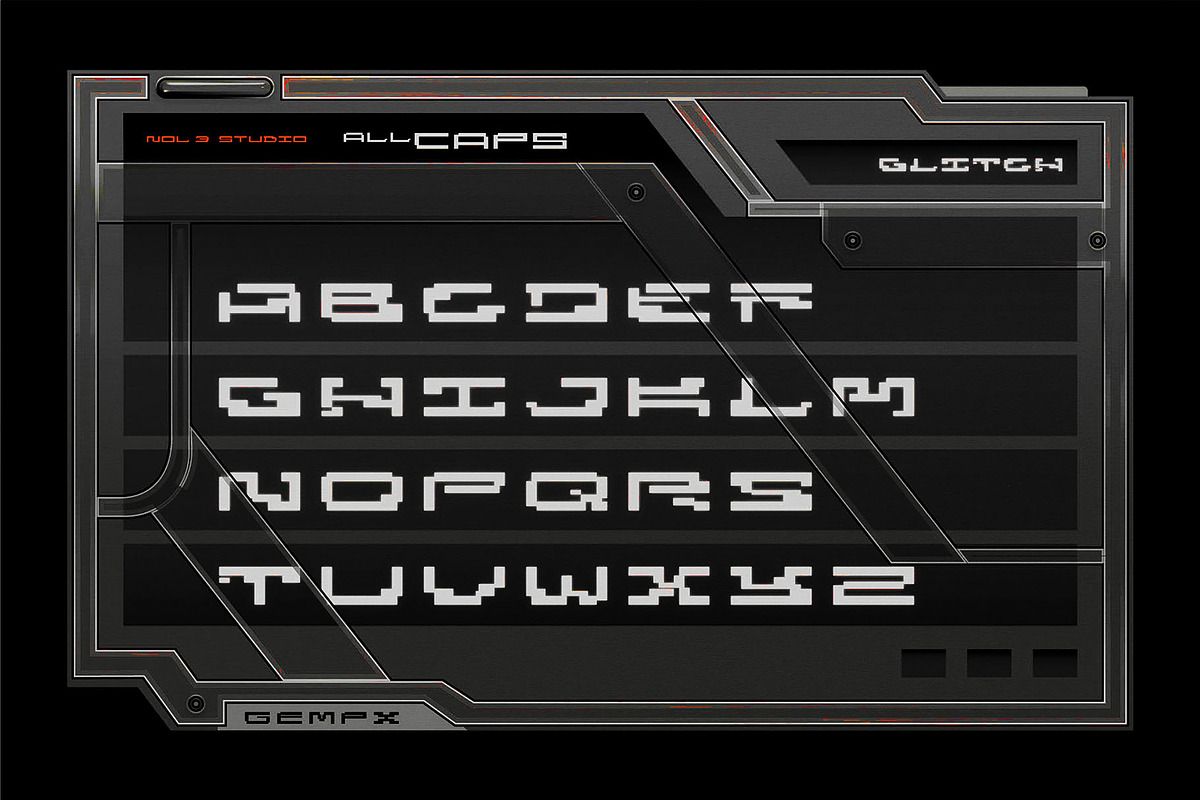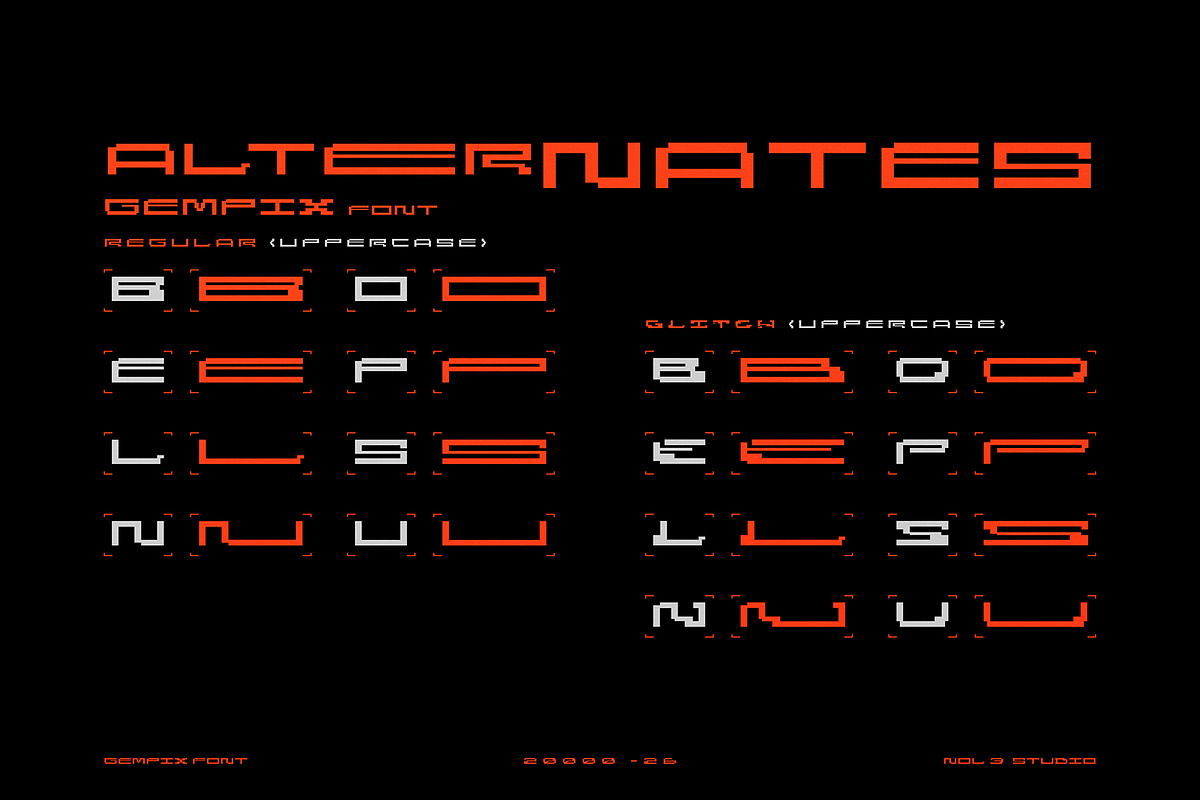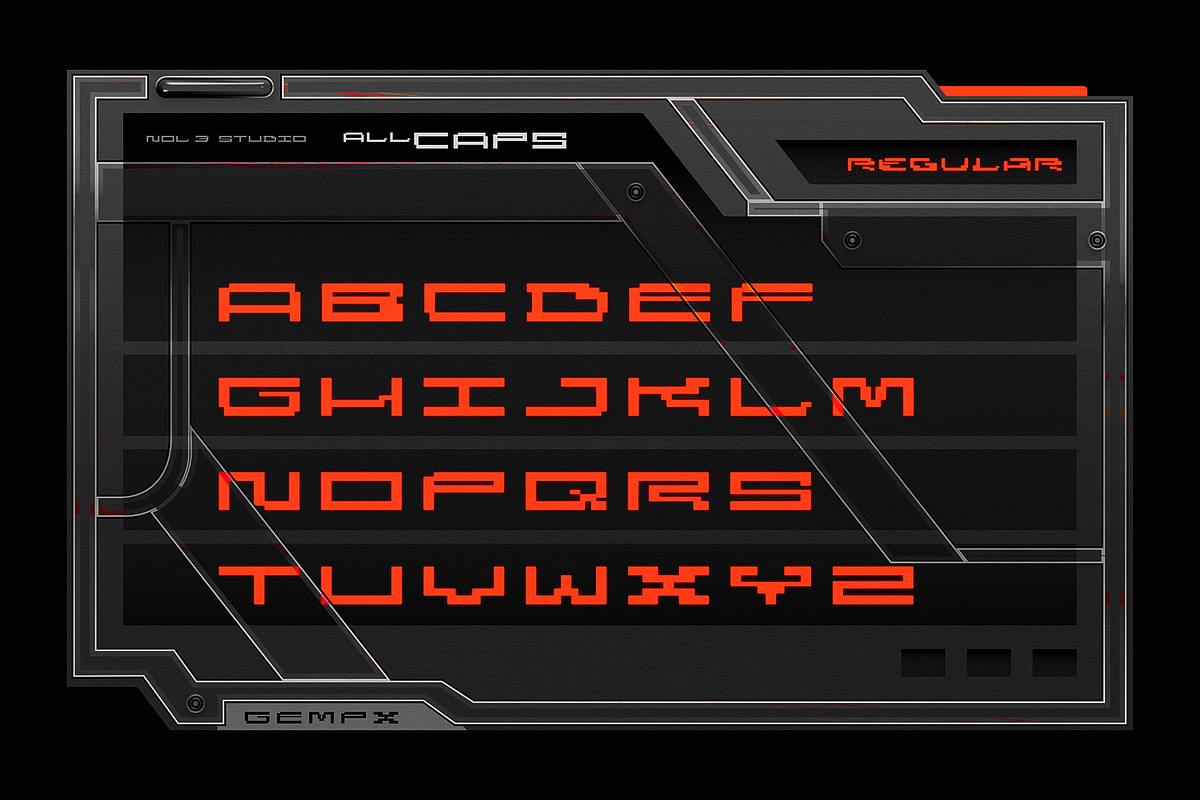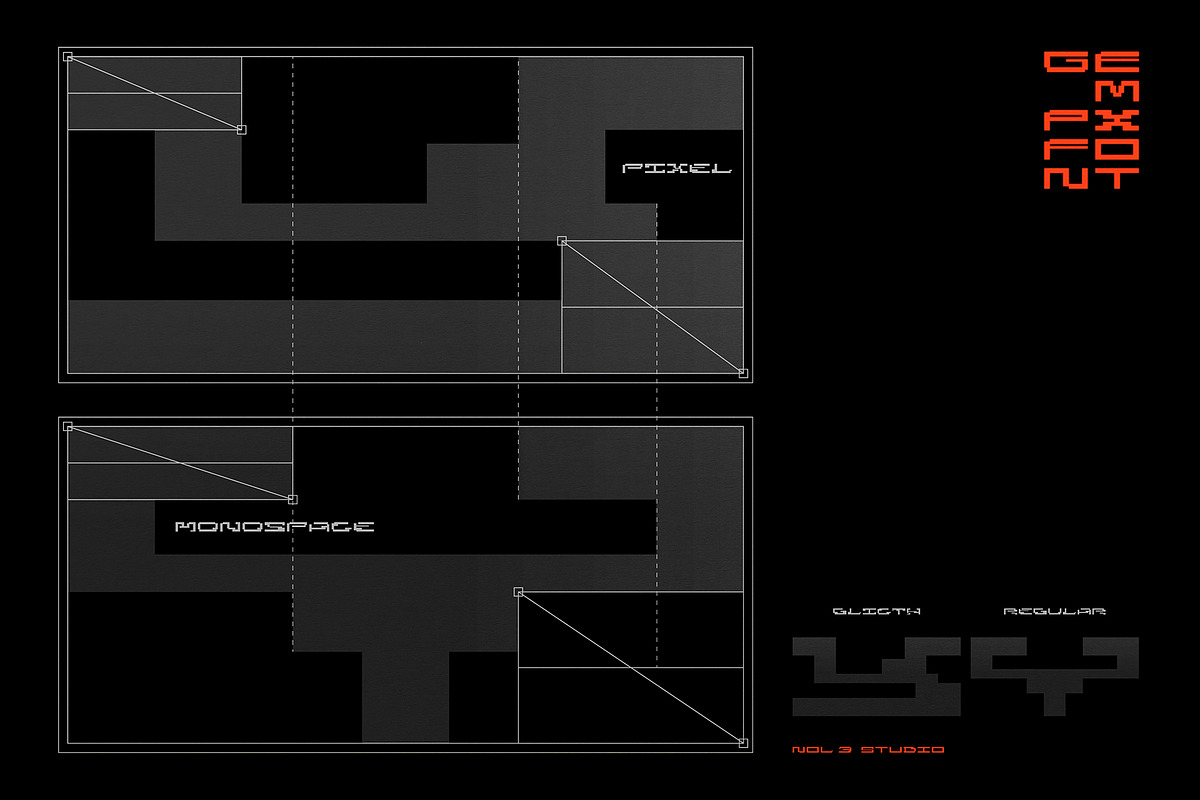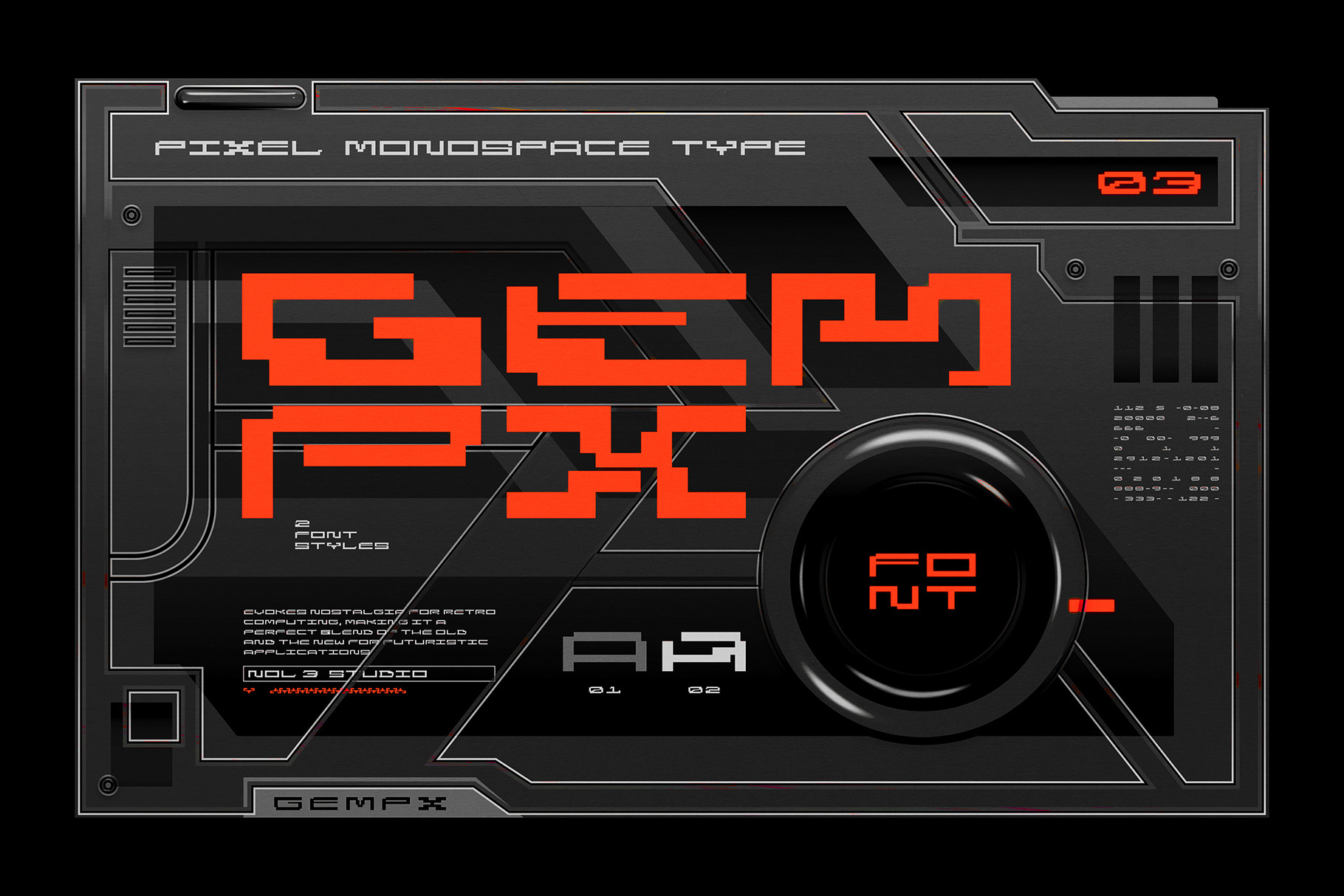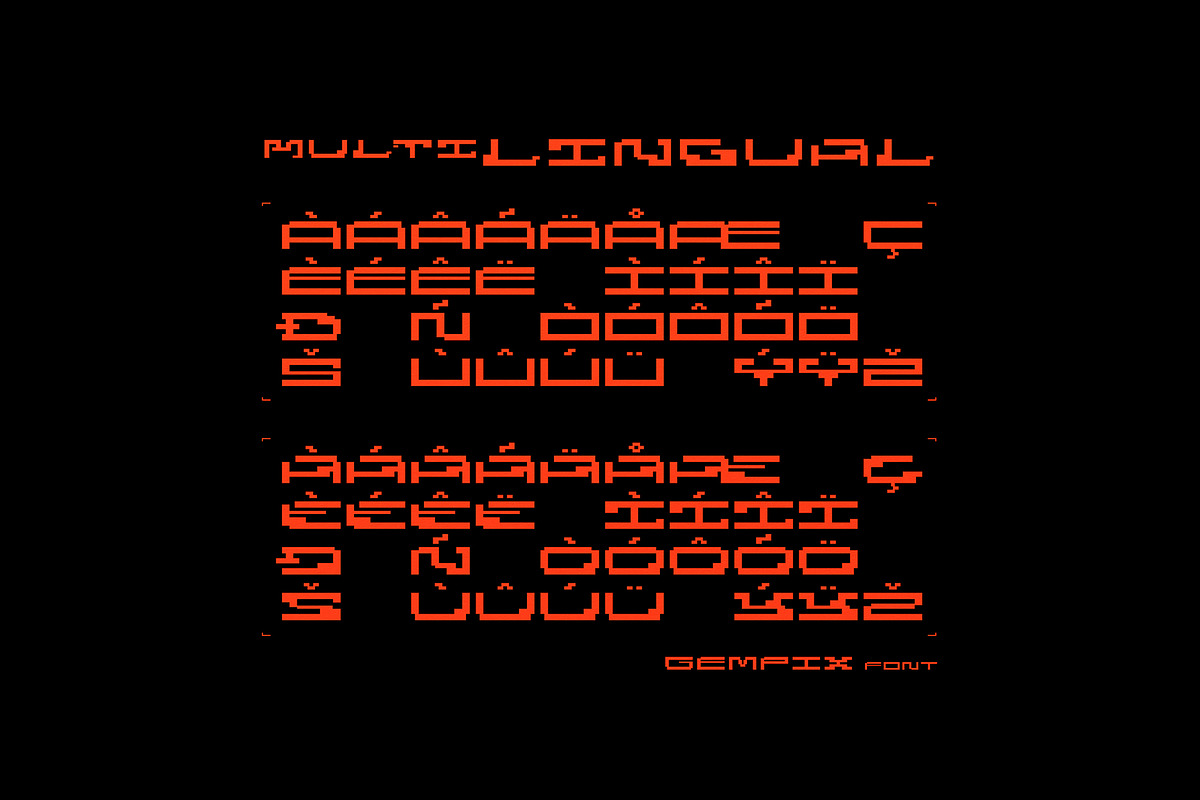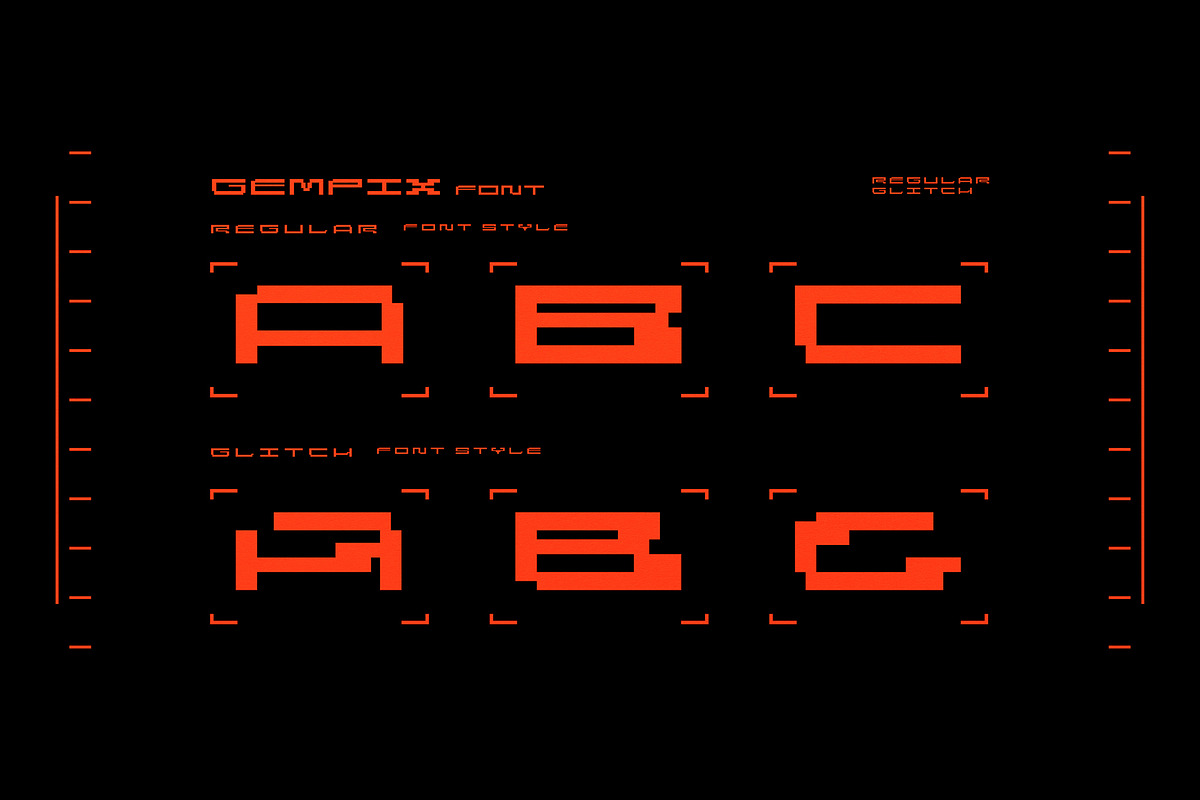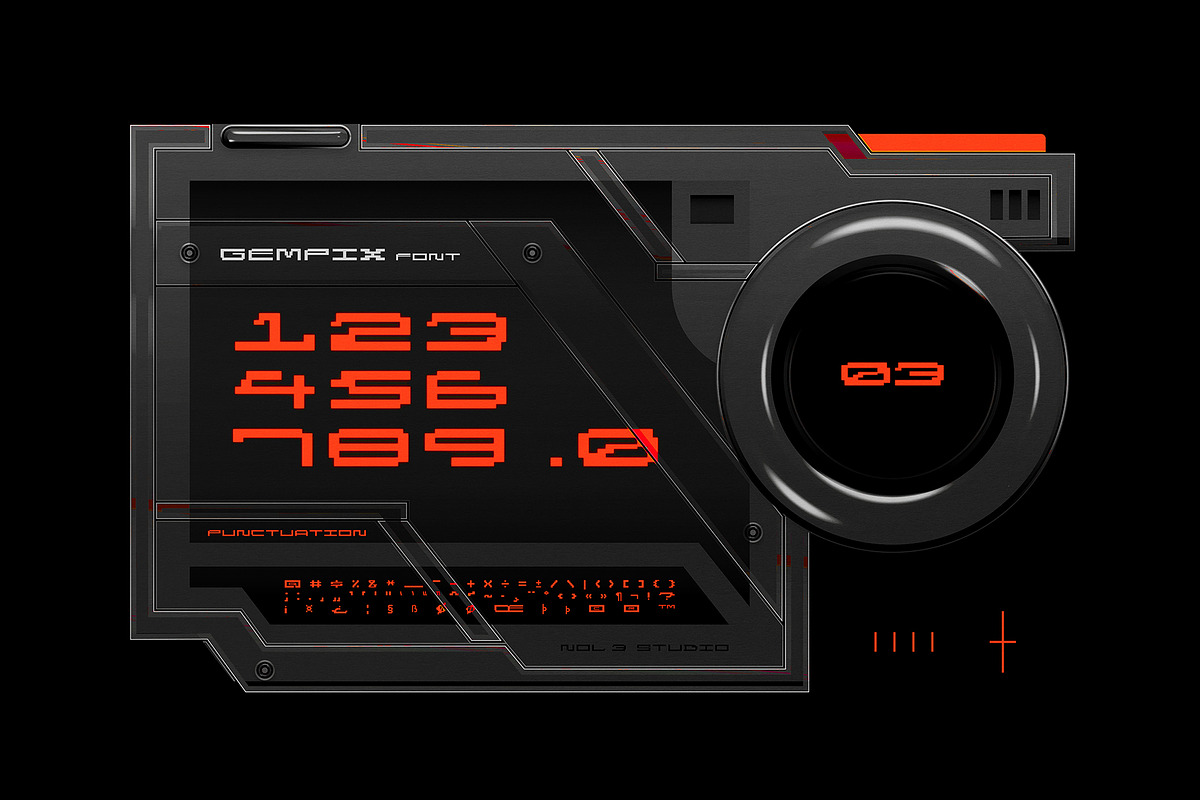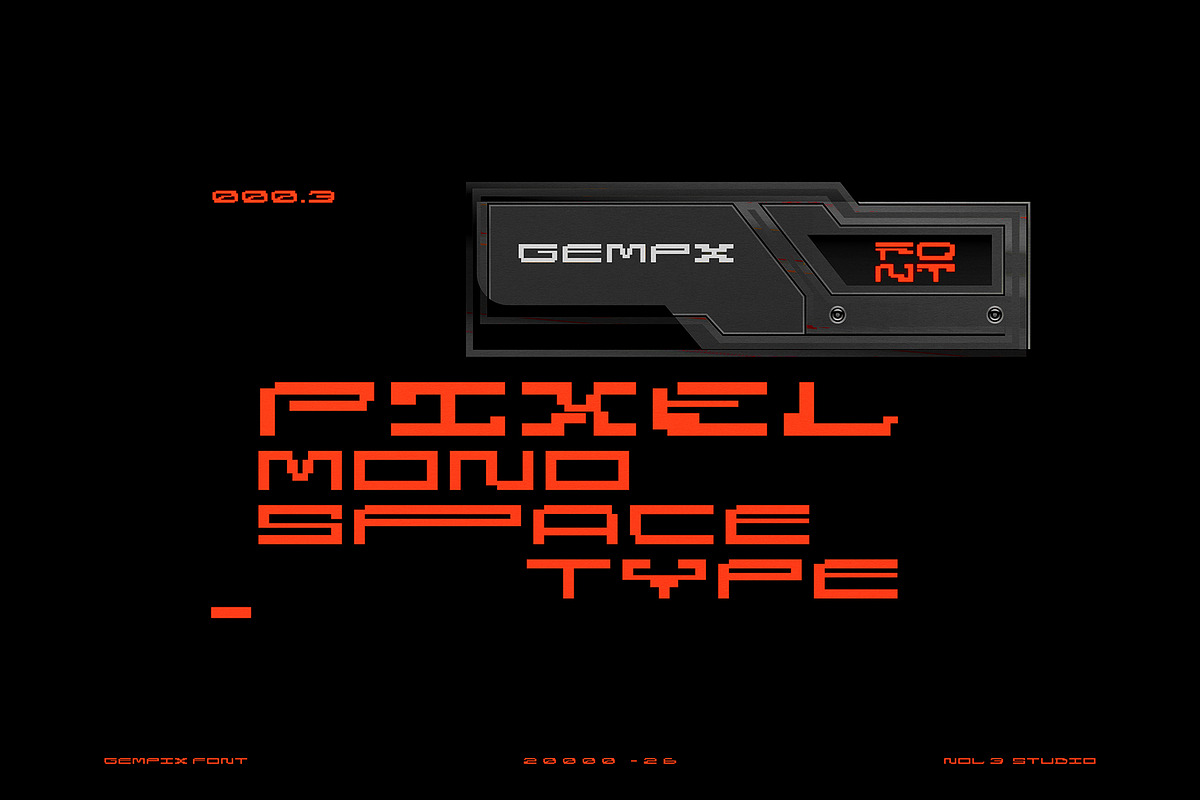
GEMPX | Pixel Glitch Font
GEMPX is a pixel monospace font inspired by the fundamental shapes of pixels, incorporating elements of glitch and distortion. This modern typeface embodies a high-tech aesthetic, resonating with themes of space and cyber technology. With its sharp edges and geometric forms, GEMPX not only enhances readability but also evokes nostalgia for retro computing, making it a perfect blend of the old and the new for futuristic applications.
The Font Contains 200+ Glyphs
ALLCAPS Character
2 Font Styles (Regular & Glitch)
Extra Stylistic Alternate